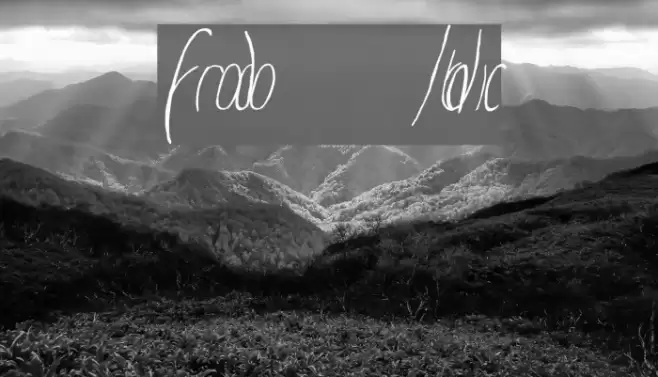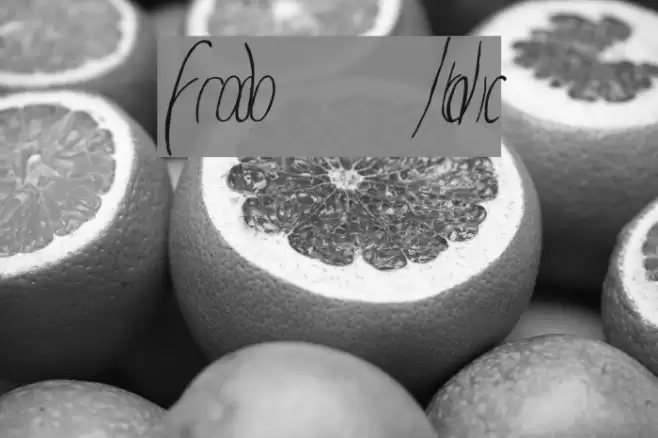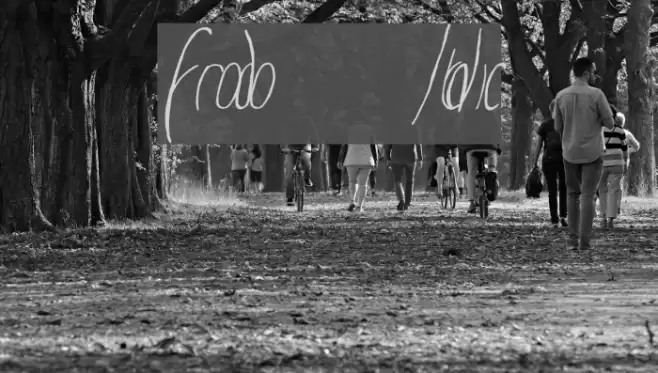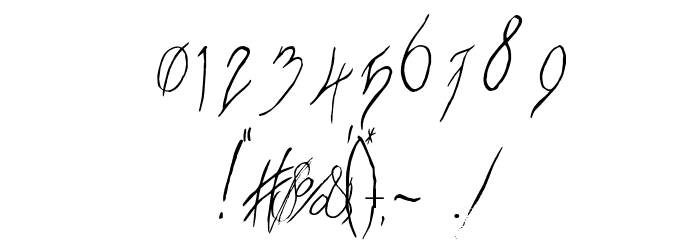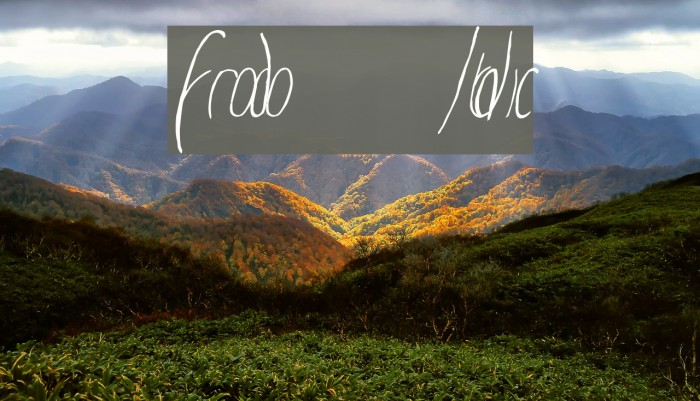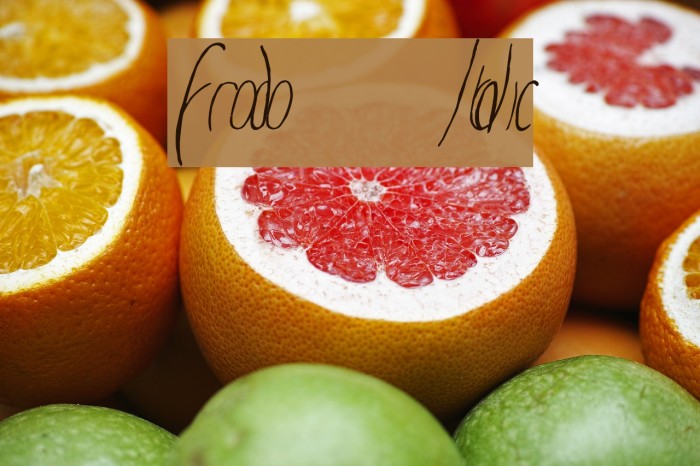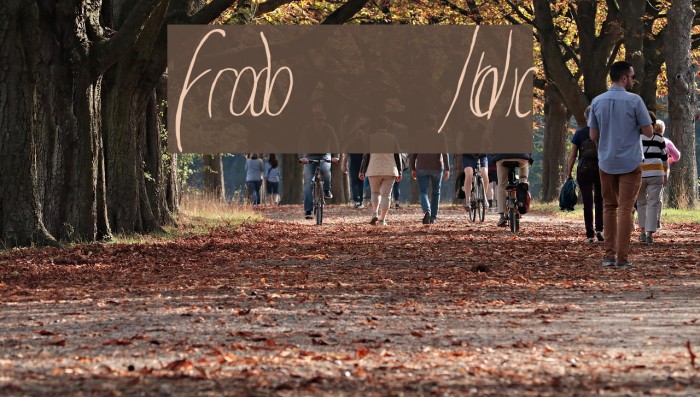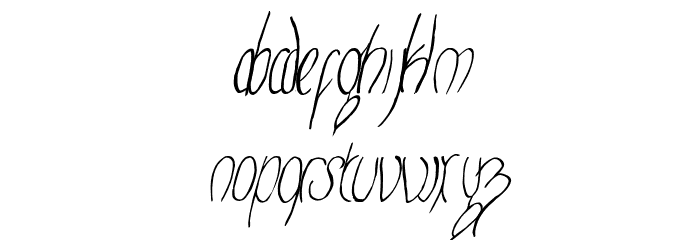
Frodo Italic Font
Frodo Italic Description
This font features an elegant, flowing script style with a distinctly italicized slant. The characters are elongated and possess a whimsical, almost ethereal quality, reminiscent of handwritten calligraphy. The strokes are thin and delicate, with a consistent fluidity that adds to its graceful appearance. The uppercase letters are particularly ornate, with sweeping curves and loops, while the lowercase letters maintain a more subtle elegance. Numbers and special characters are designed to match the overall aesthetic, ensuring a cohesive look across all text. This font's unique style makes it ideal for projects that require a touch of sophistication and creativity.
An elegant, italicized script font with a whimsical, calligraphic style from Uncategorized fonts.